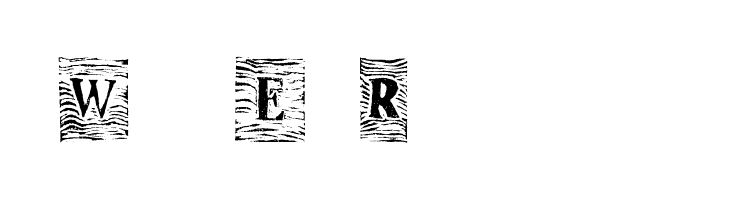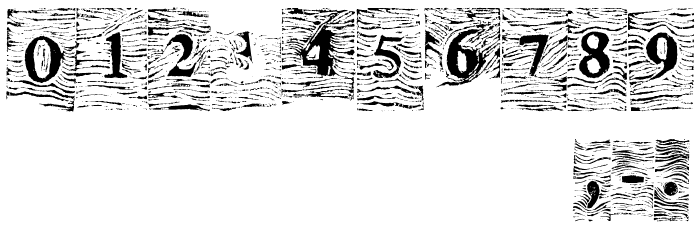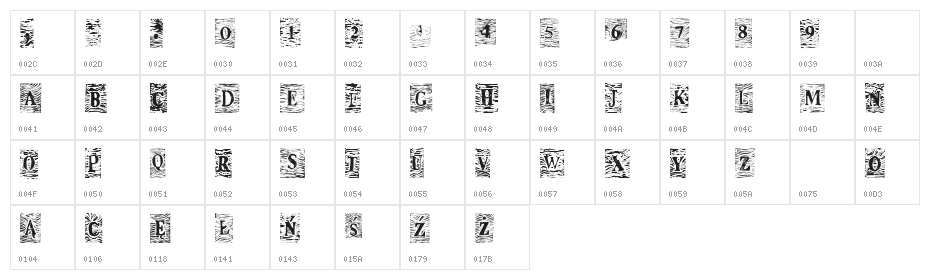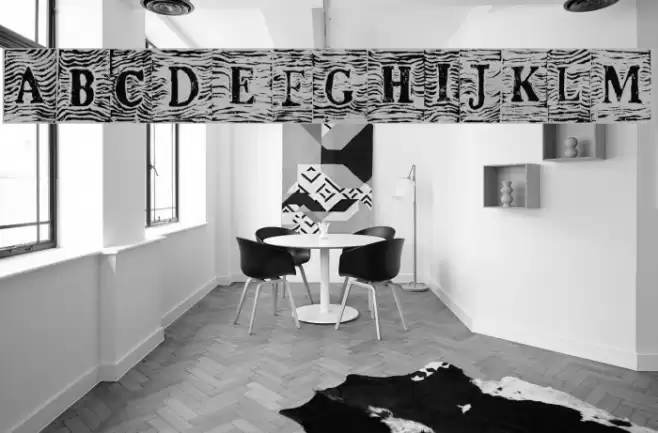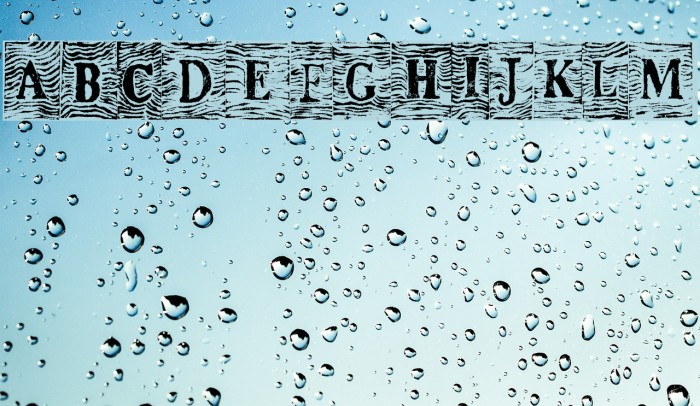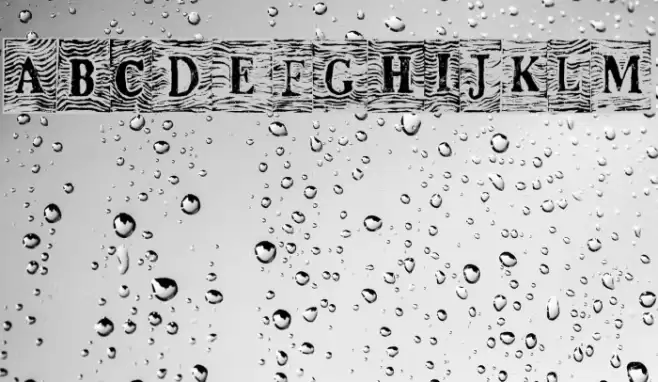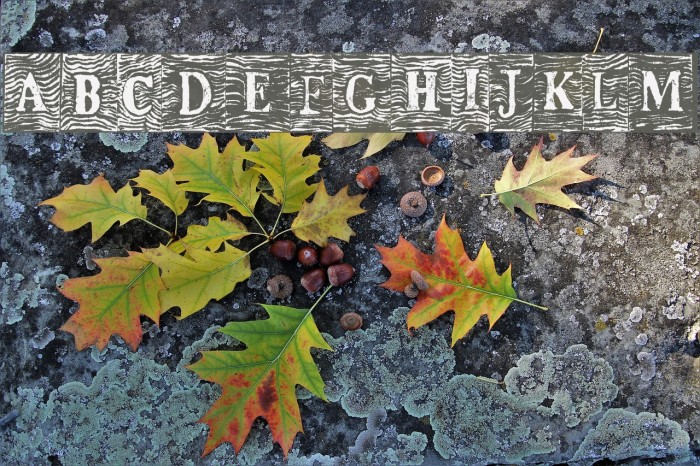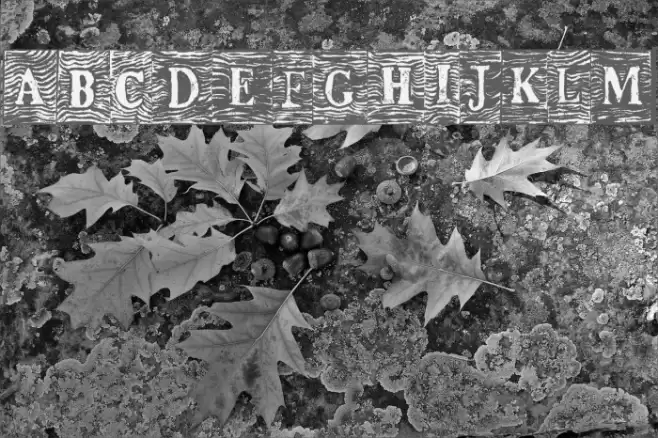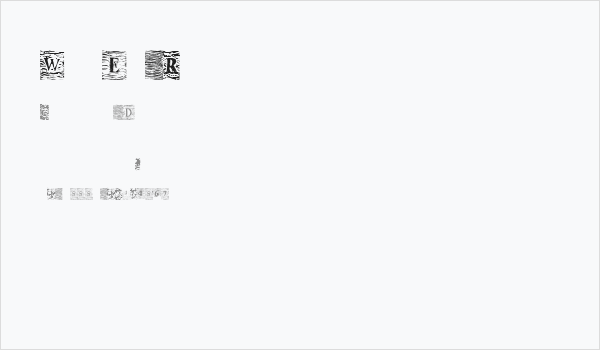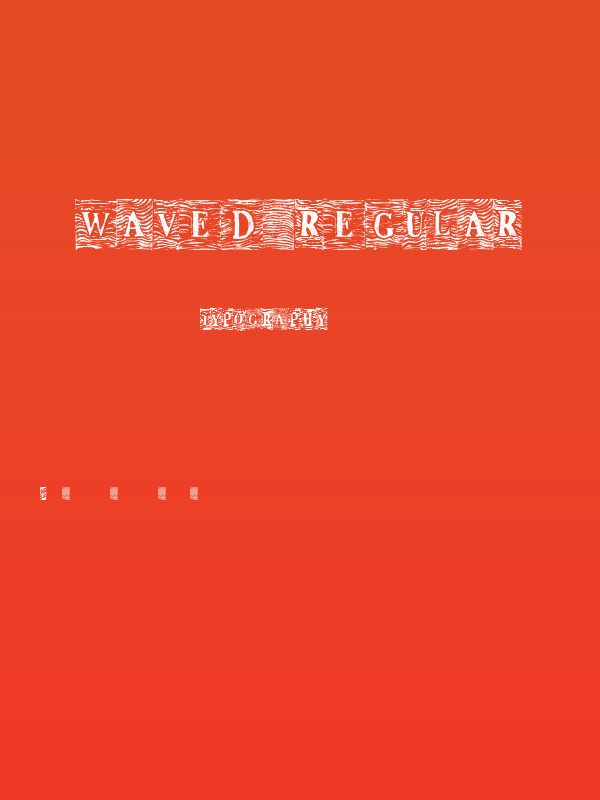
WavEd Regular Font
WavEd Regular Description
This font features a unique, textured design that mimics the appearance of wood grain, giving each character a distinct, organic feel. The letters are bold and uppercase, with a slightly rough edge that enhances the natural aesthetic. The numbers and special characters follow the same style, maintaining consistency across the font set. This design is particularly eye-catching and would stand out in any creative project. The texture adds depth and interest, making it suitable for projects that require a rustic or handcrafted look. The font's boldness ensures readability while the intricate details provide a decorative touch.
| Proposed Projects | Perfect for branding, packaging, posters, and any design requiring a natural, handcrafted aesthetic. |